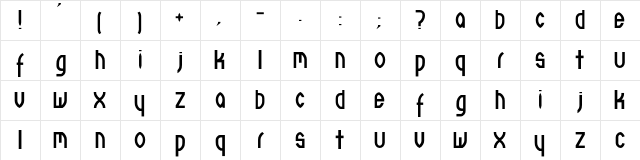
Kryptonic Regular
Design Context for Kryptonic Typeface
Kryptonic is a composed and adaptable typeface that performs quietly and consistently across a wide range of design contexts.
Pro Tip: Pair Kryptonic with a font of contrasting weight or personality to build a more expressive typographic hierarchy.